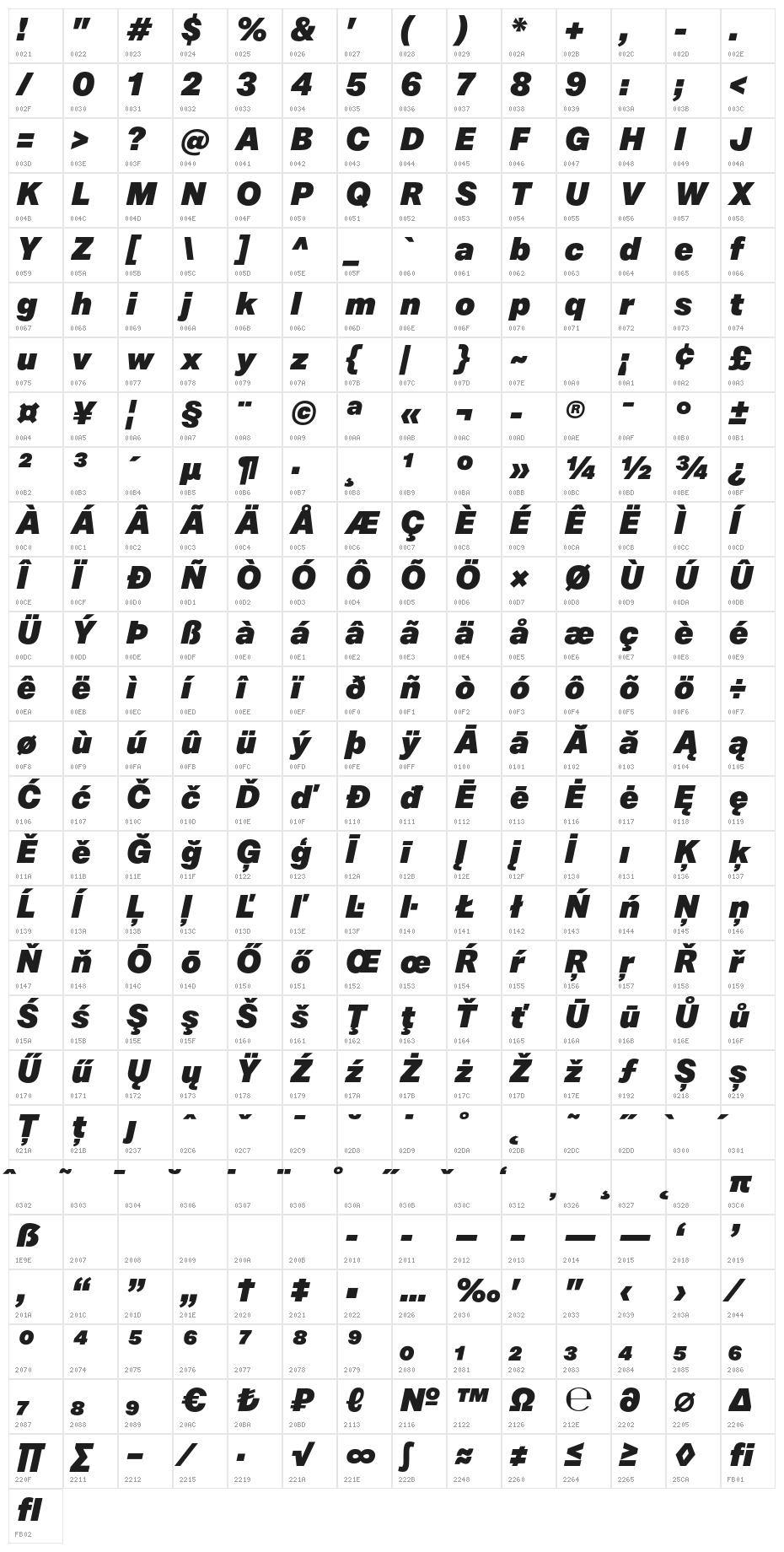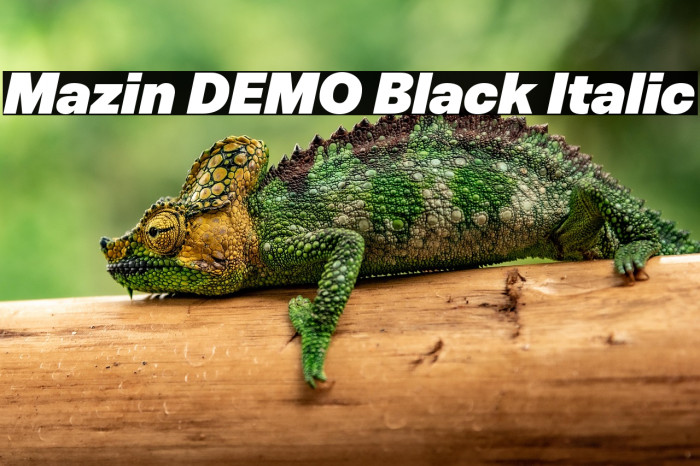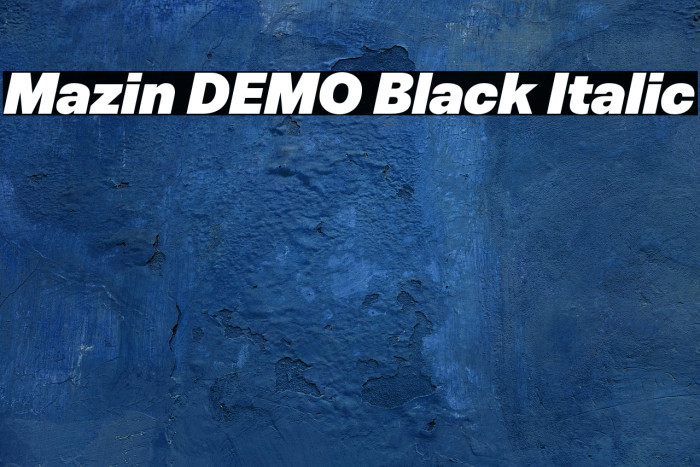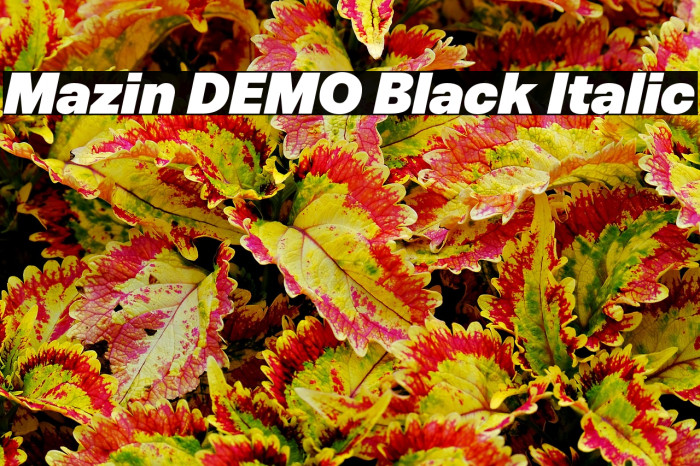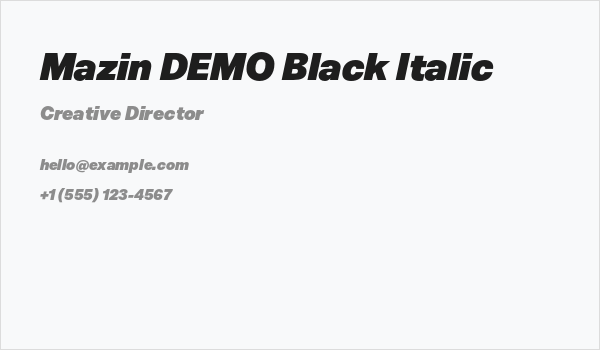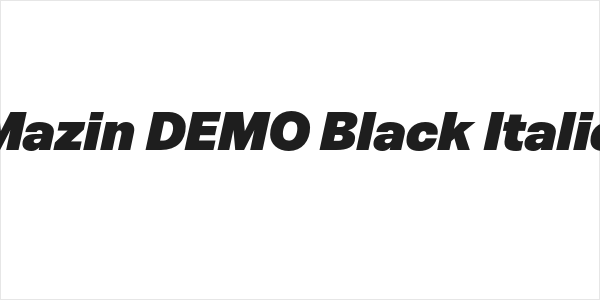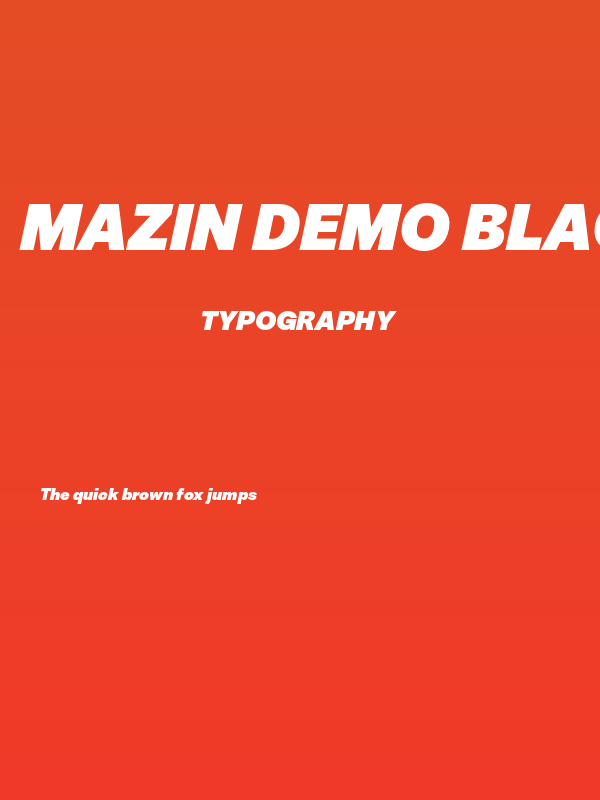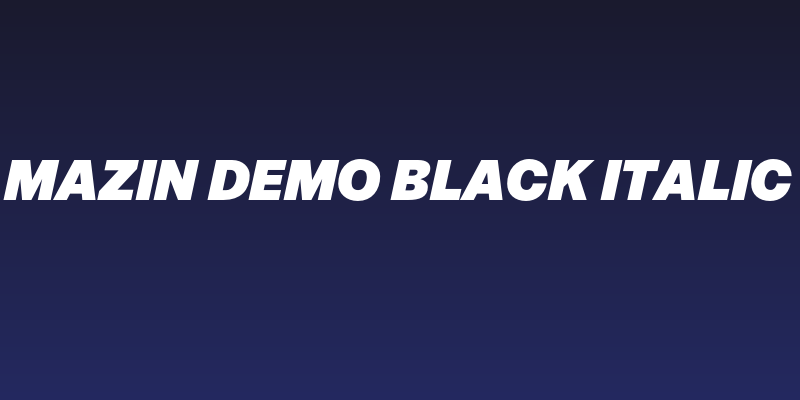
Mazin DEMO Black Italic Font
Mazin DEMO Black Italic Description
This font exhibits a bold and dynamic presence with its strong, thick strokes and italicized slant, creating a sense of movement and emphasis. The characters are robust and impactful, making them ideal for grabbing attention. The uppercase and lowercase letters maintain a consistent weight, ensuring readability while adding a modern flair. Numbers and special characters are equally bold, complementing the overall design. The font's style is versatile, suitable for various applications where a strong visual impact is desired.
| Proposed Projects | Ideal for headlines, posters, branding, and advertising where a bold statement is needed. |